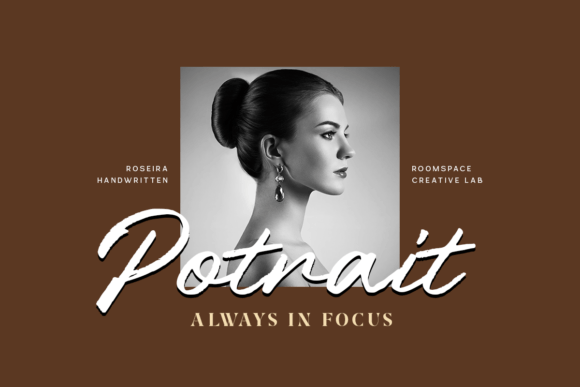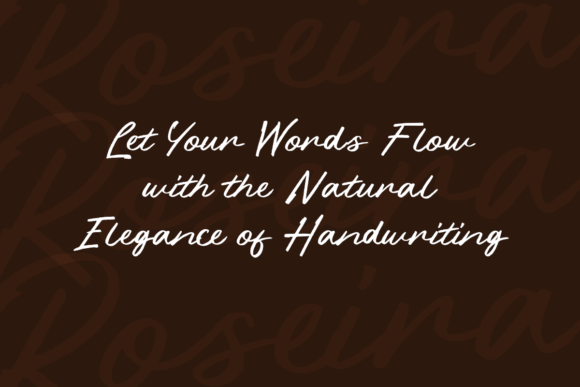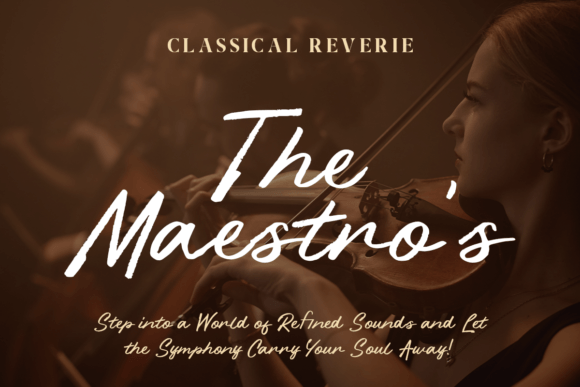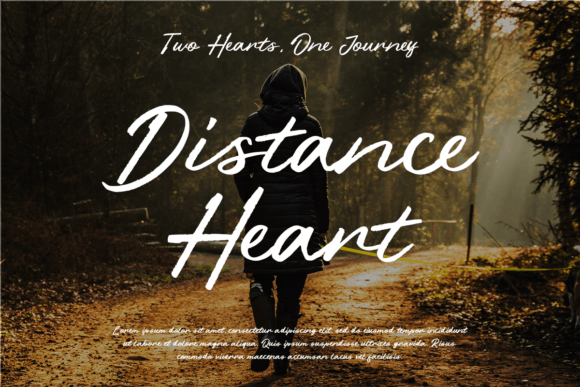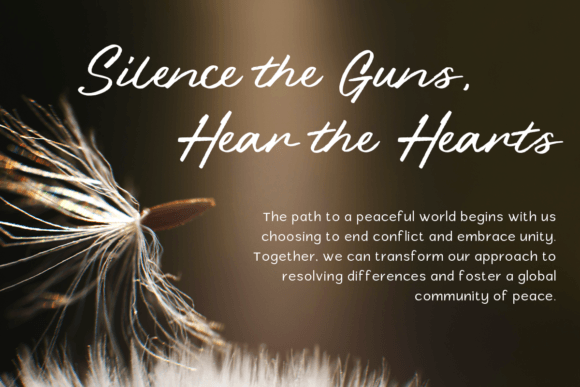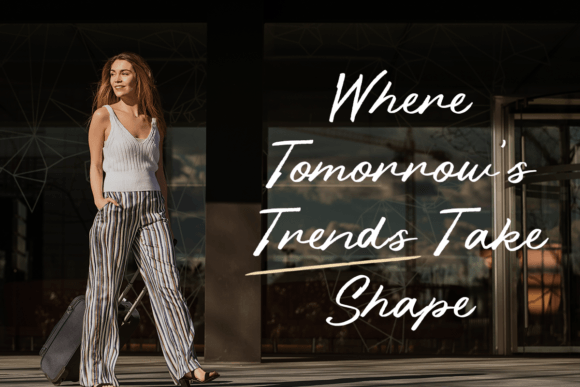
Introduction to Roseira Font
Have you ever been working on a creative project and suddenly, the perfect font pops into your mind, elevating your design from good to great? For many designers, this moment is a game-changer. It’s what turns a simple idea into a masterpiece. For us, that moment came with the discovery of Roseira Font – a beautifully crafted handwritten script font that embodies effortless elegance and sophistication.
Whether you’re working on a branding project, a wedding invitation, or social media graphics, Roseira Font is the perfect design resource to add a personal touch. Its smooth, flowing lines capture the natural beauty of hand-lettering, making it an ideal choice for designs that require a warm and inviting feel. With full multilingual support and high-quality glyphs, this font is ready to serve a global audience, making it easier than ever to share your message with the world.
What makes Roseira Font truly valuable for designers is its versatility and charm. It’s perfect for creating a timeless wedding suite or a modern branding package, and with a transparent background, it’s easy to use and customize. With Roseira Font, you can add a touch of handcrafted beauty to your designs and elevate your creative project to the next level.
Key Features of Roseira Font
- High-quality design resource with a delicate and elegant appearance, ideal for creative projects.
- Features a transparent background, allowing for seamless integration with various backgrounds and designs.
- Unique characteristics include intricate details and subtle texture, adding depth and visual interest to any design project.
- Designed to be highly legible, making it an excellent choice for body text, headings, and titles in various creative projects.
- Comes with a comprehensive character set, including uppercase and lowercase letters, numbers, and punctuation marks, making it a versatile design resource.
Honest Review: Roseira Font
As a designer, I’m always on the lookout for high-quality design resources to elevate my creative projects. Recently, I stumbled upon the Roseira Font, and I’m excited to share my honest review with you.
Here are some things that work well: ✨ The Roseira Font offers a free download, making it an accessible resource for designers of all levels. The font itself is sleek and modern, with a beautiful, intricate design that’s perfect for a variety of creative projects. I particularly appreciate the transparent background, which makes it easy to use in a range of design contexts.
However, I did encounter a few limitations: ⚠️ The font is not as versatile as some other fonts I’ve worked with, and it may not be suitable for projects that require a wide range of font styles. Additionally, the free version of the font has some limitations on commercial use, which may be a concern for designers who plan to use the font in a paid project.
Overall, I’m impressed with the quality and design of the Roseira Font. While it may not be the perfect font for every project, it’s a great addition to any designer’s toolkit. With its free download and transparent background, it’s an excellent choice for designers looking to add some sophistication to their creative projects.
Getting the Most Out of Roseira Font
Use the transparent background feature to create visually appealing designs. Experiment with different font sizes and colors to create a unique look. Combine Roseira Font with other design resources for a high-quality design.